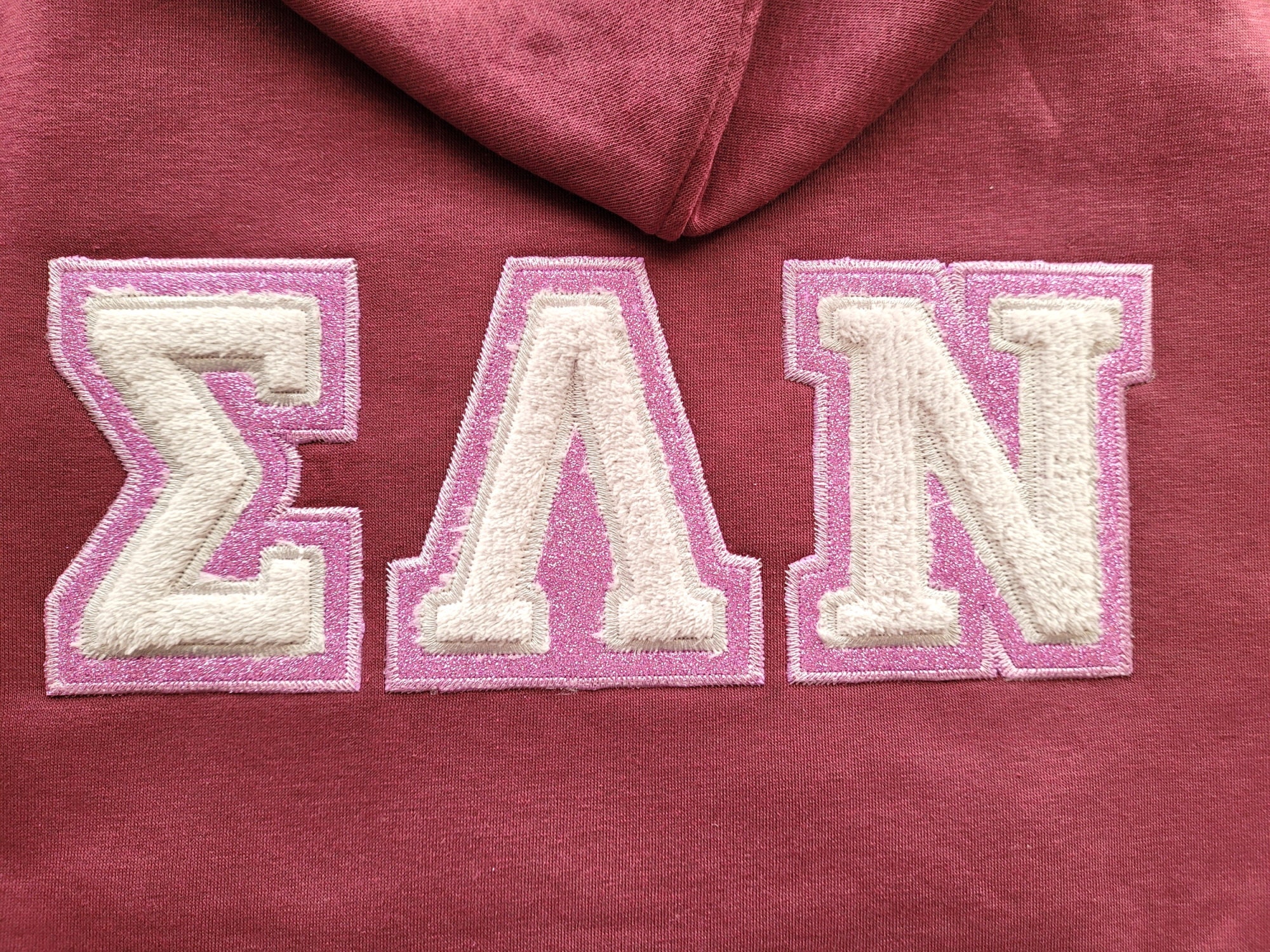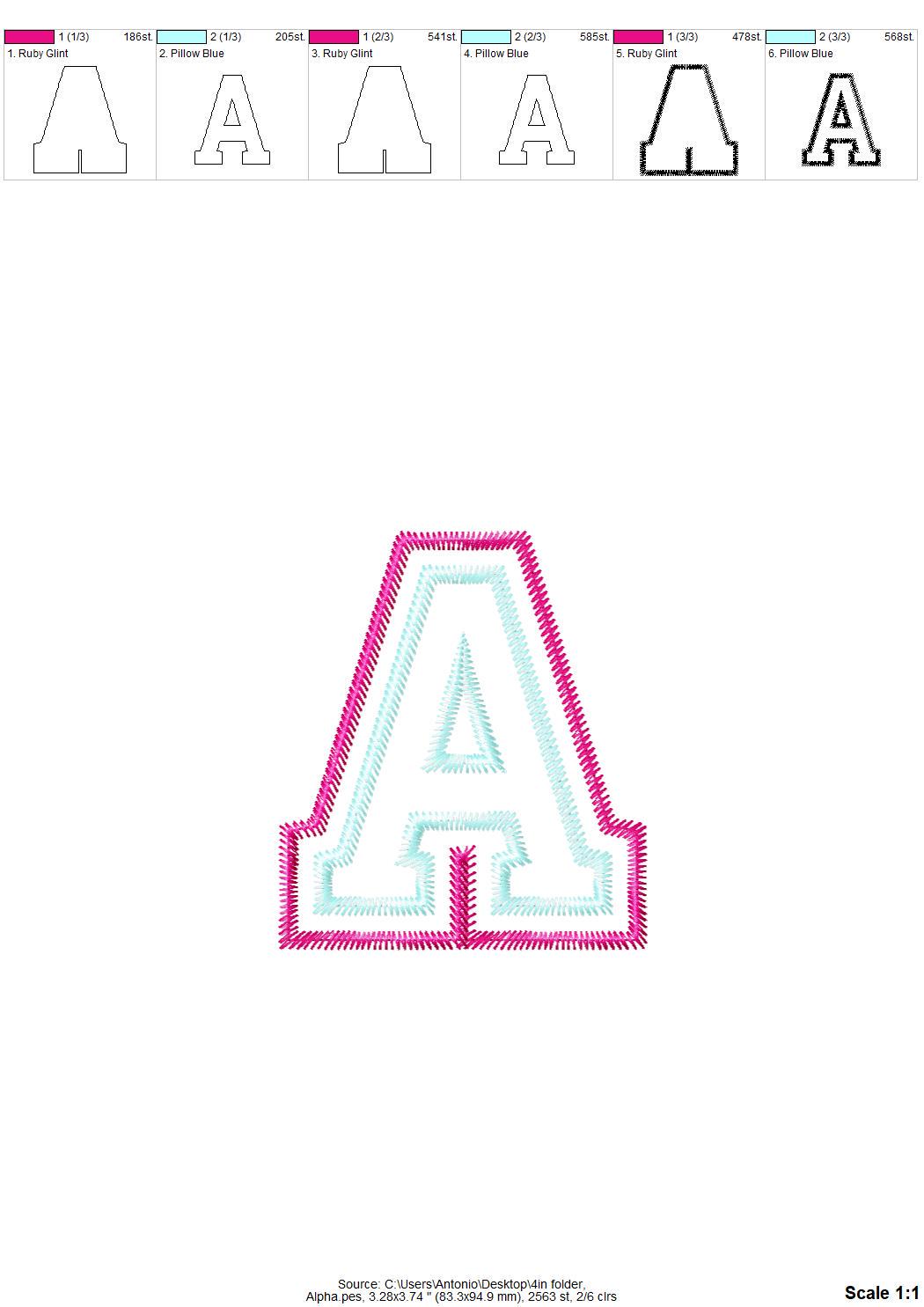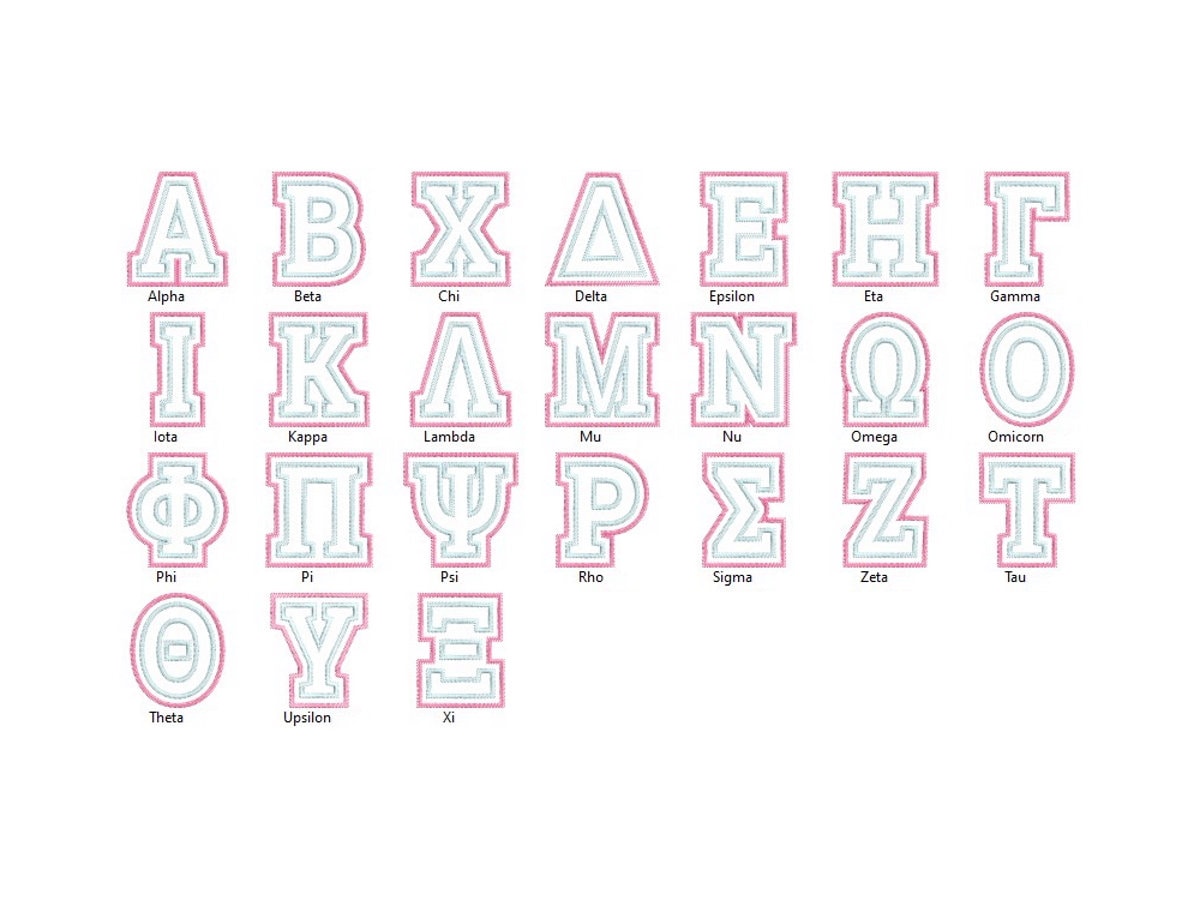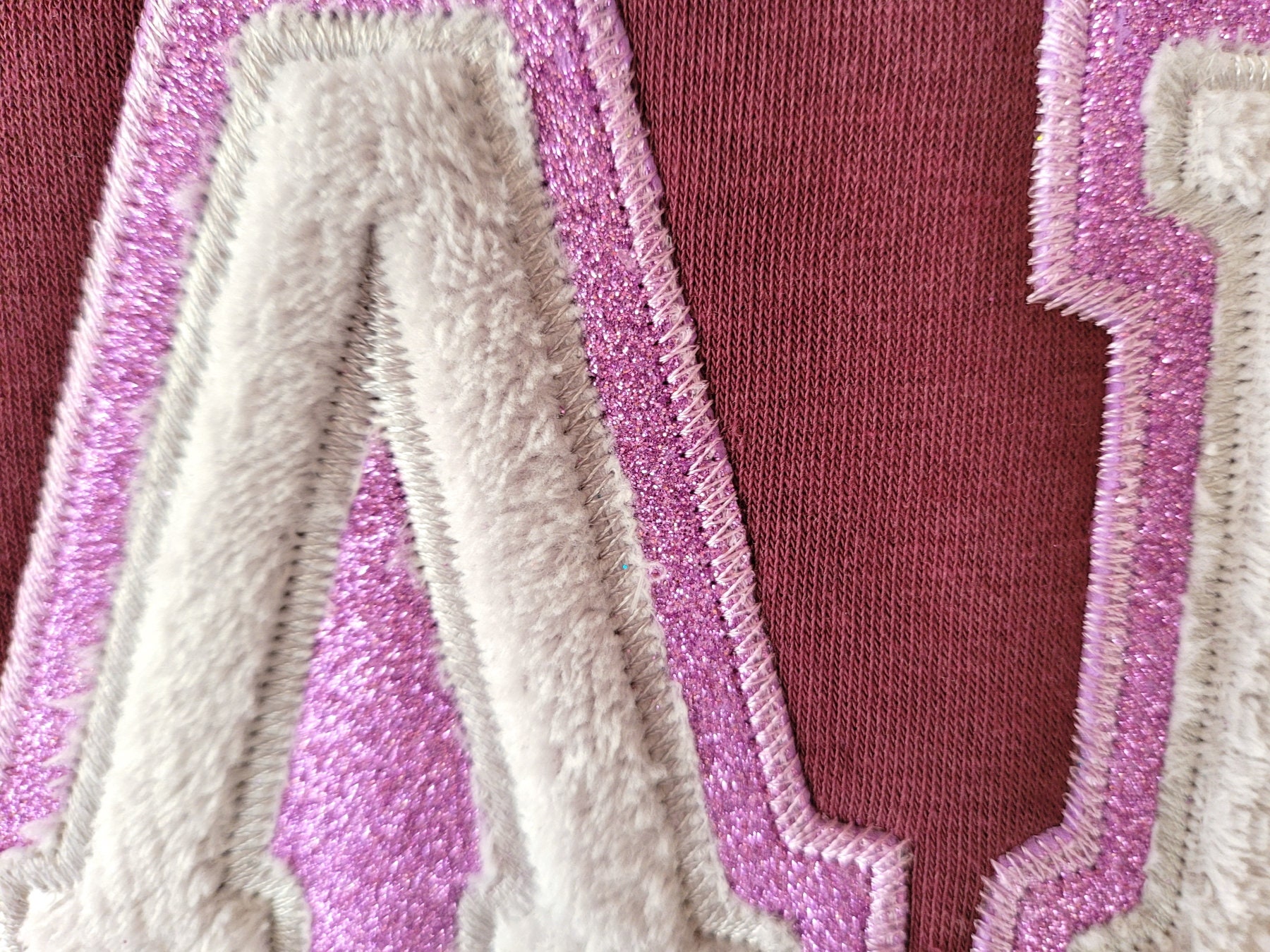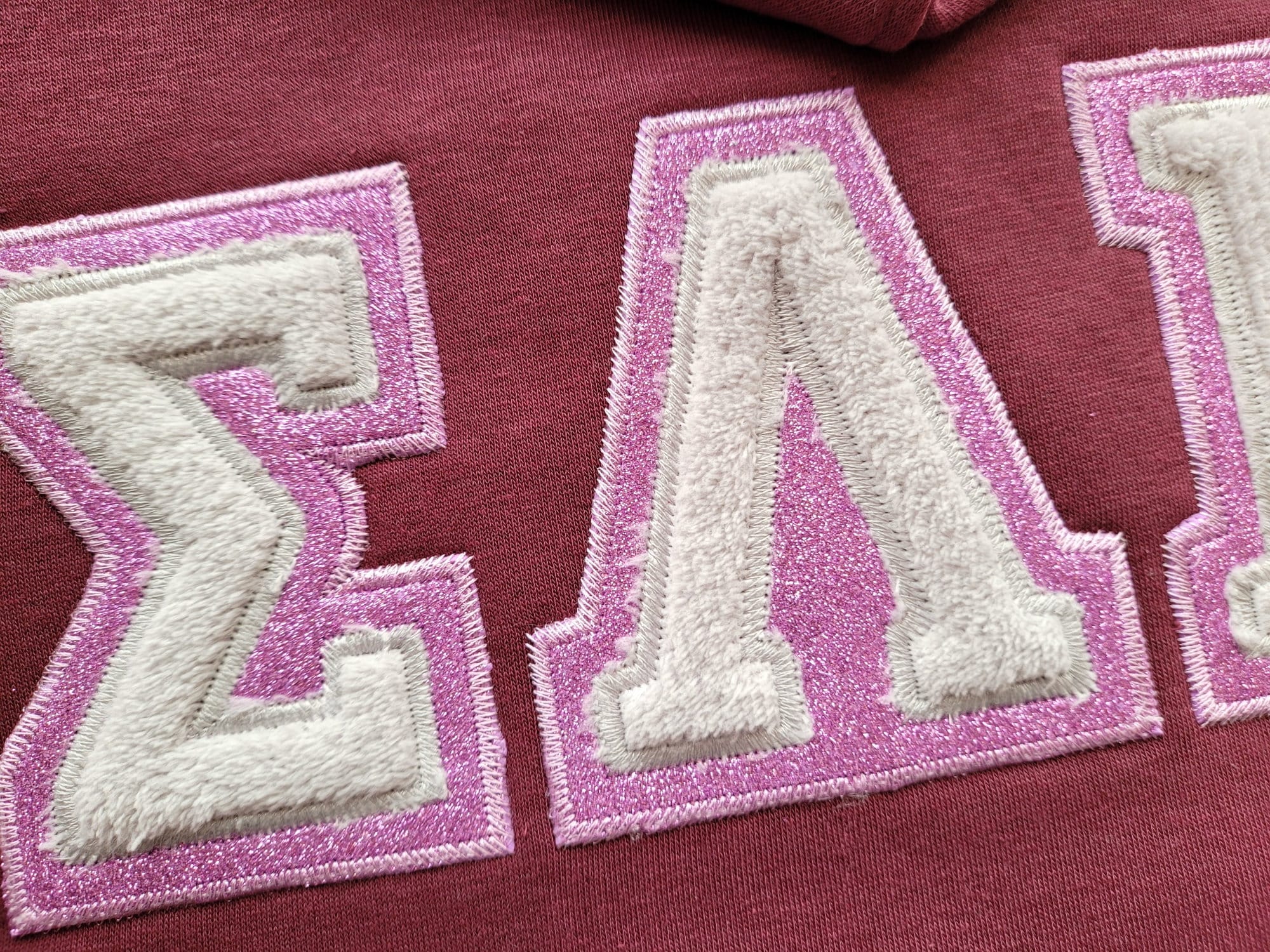
GREEK FONT double 2 layer applique Greek alphabet Zigzag outline Alpha Beta Gamma applique machine embroidery designs monogram letters, BX included
Double applique, 2 layers. I used embroidery vinyl and minky fabric for this font. Please view the photos.
Letters have a nice zigzag stitch outline.